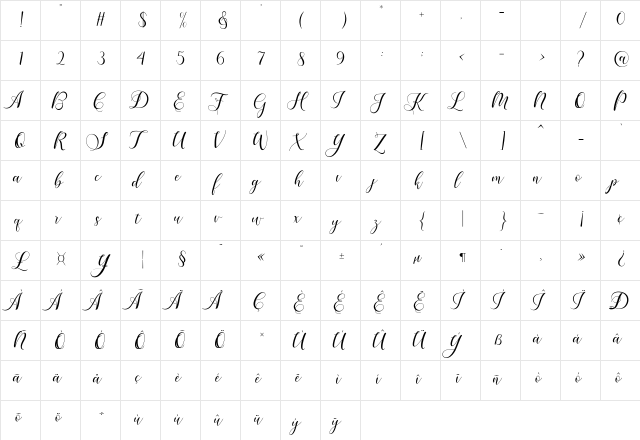
Karliyna Script Regular
Design Context for Karliyna Script Typeface
Karliyna Script brings a calligraphic fluidity to the page — its connecting strokes and expressive curves give it an unmistakably human quality.
Font Pairing: Combine Karliyna Script with a simple geometric sans for maximum contrast — the tension between flowing curves and clean structure is a classic typographic pairing.
Pro Tip: Use Karliyna Script for short runs of text — names, titles, or taglines. Extended body copy in script faces tires the eye quickly.